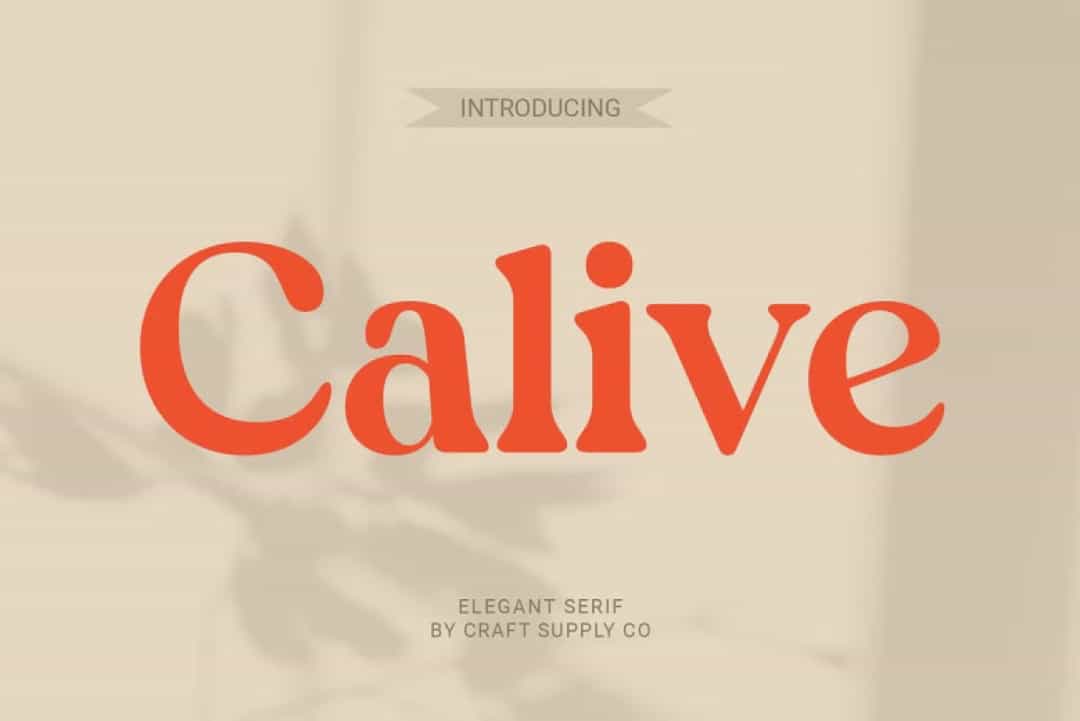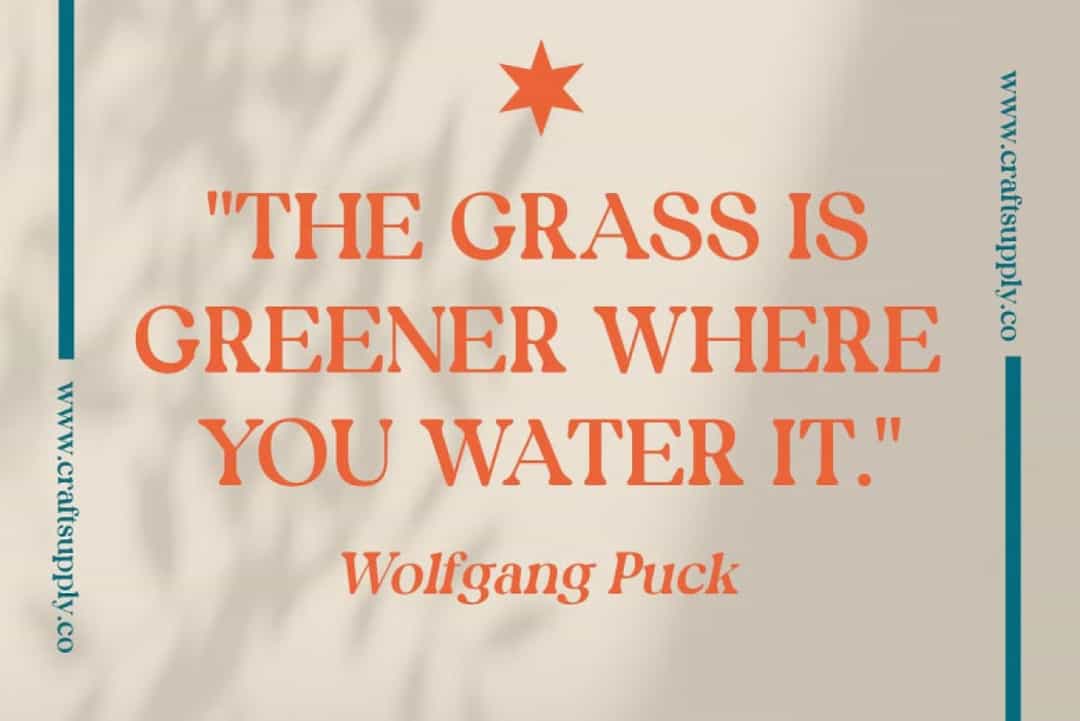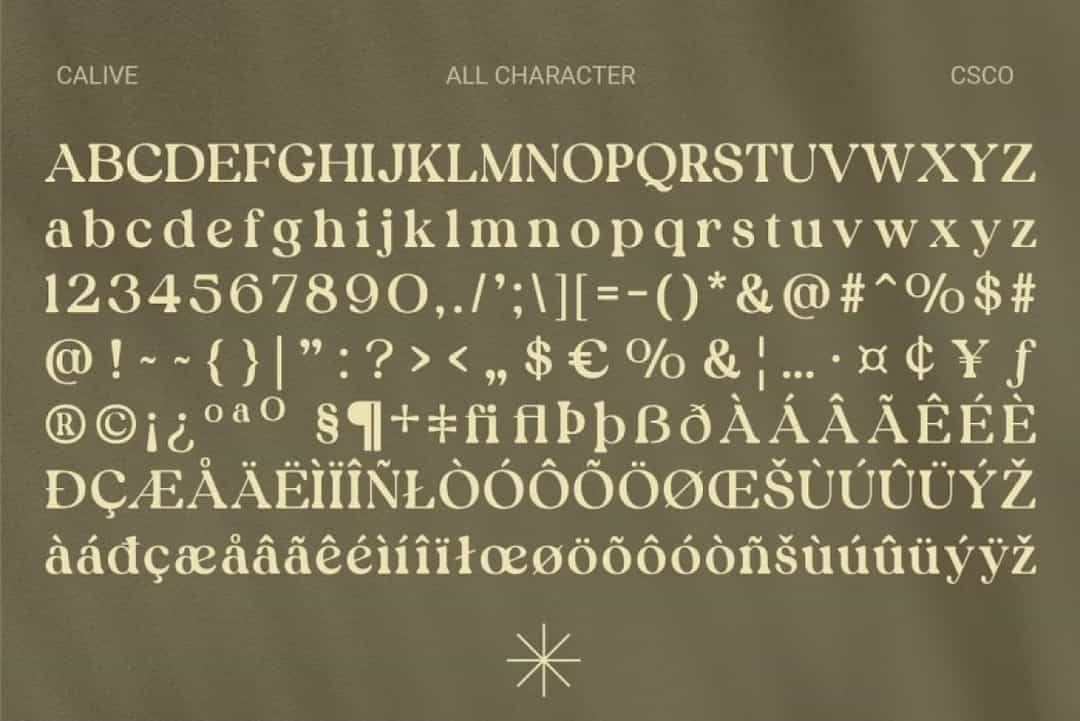
Calive Font is an Ideal Example of Nostalgic and Soft Serifs. Rounded Serif Design Calive features distinct rounded serif designs that exude soft elegance, as each letter adds its own bit of sophistication reminiscent of fonts from the 1990s.